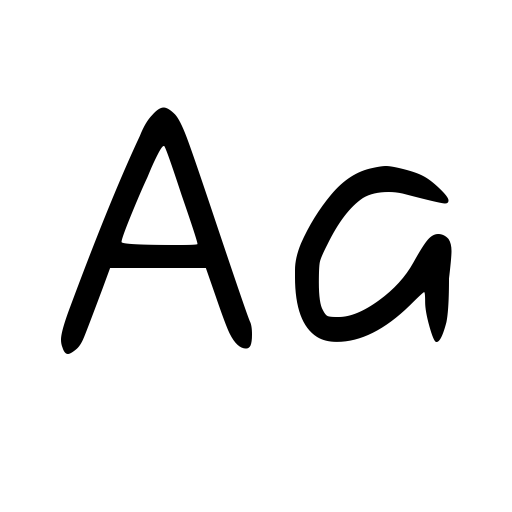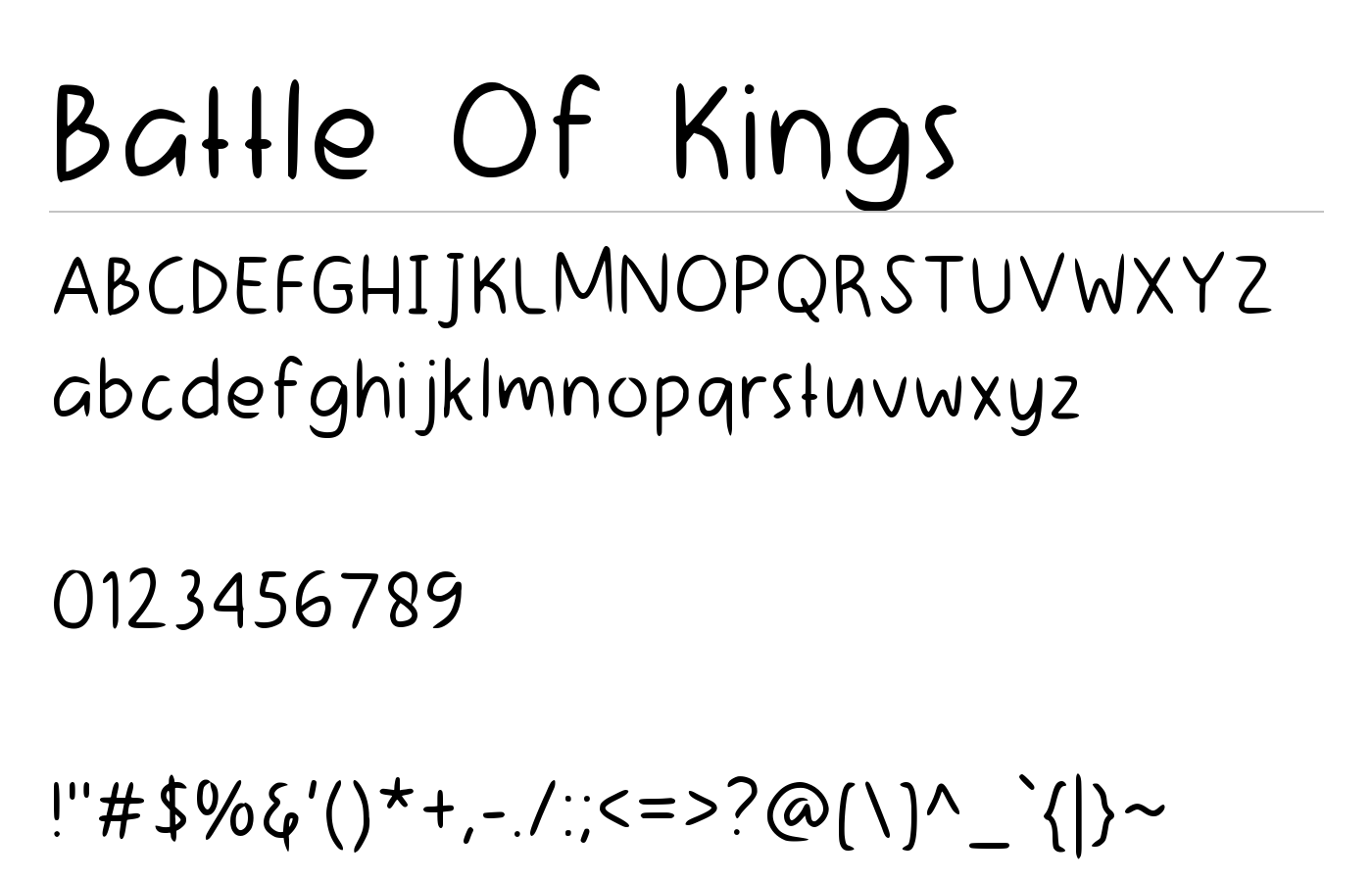
Battle Of Kings is a playful, handwritten sans serif font with a casual and friendly feel. Its clean lines, moderate x-height, and slightly irregular strokes give it a charming, approachable personality perfect for informal designs. This font works well for children's books, casual branding, and creative projects that benefit from a personal, hand-crafted touch.
Battle Of Kings Font
About Battle Of Kings Font